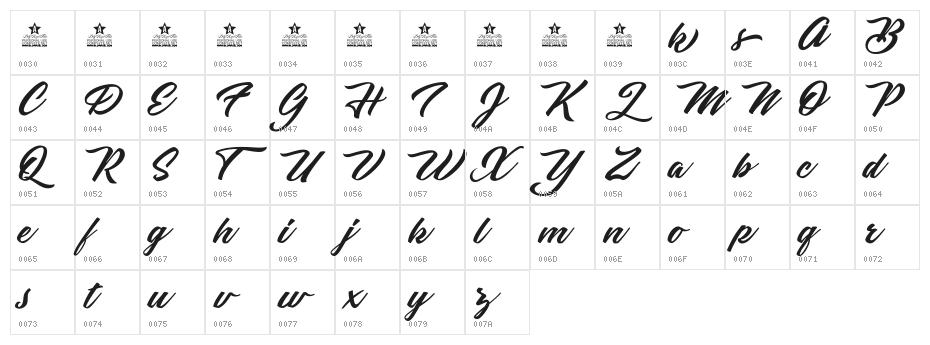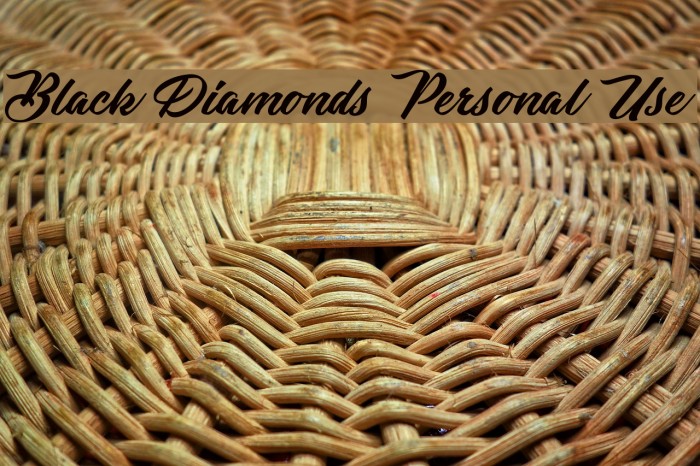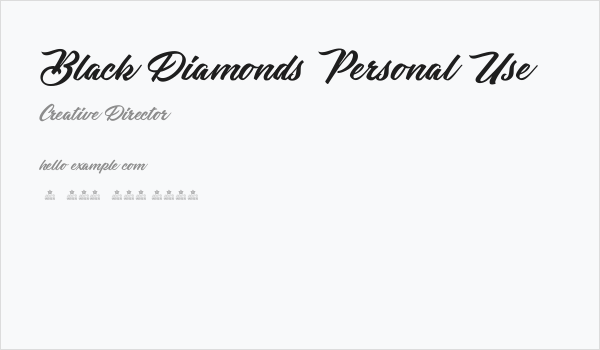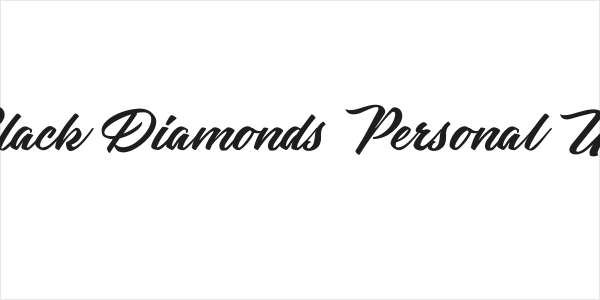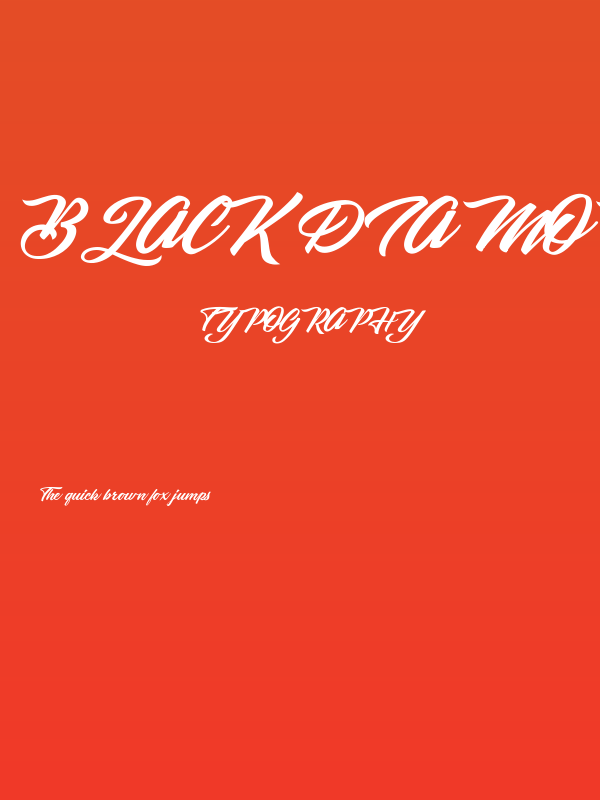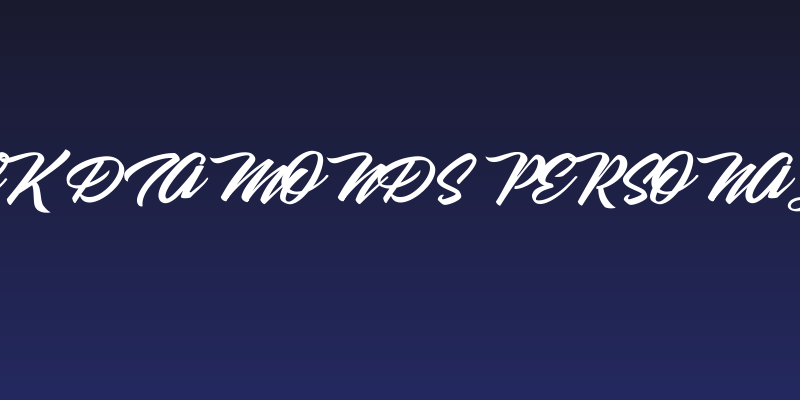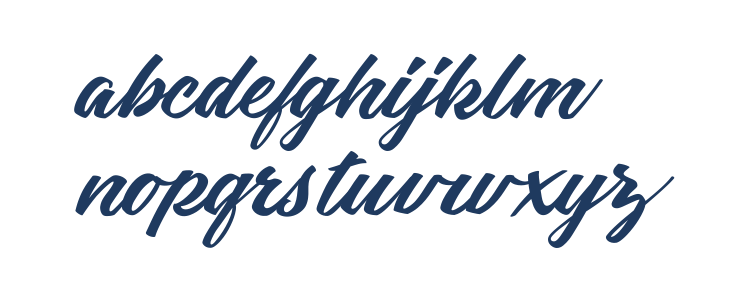
Black Diamonds Personal Use Font
Black Diamonds Personal Use Description
This font features a bold and flowing script style, characterized by its elegant and cursive letterforms. The uppercase letters are particularly striking, with sweeping curves and a sense of movement that adds a dynamic quality to the text. The lowercase letters maintain this fluidity, creating a harmonious and cohesive appearance. The font's design is reminiscent of traditional calligraphy, yet it incorporates a modern twist with its bold strokes and contemporary flair. This makes it suitable for a variety of design applications where a touch of elegance and sophistication is desired.
Use CaseLogos, Headlines, Invitations
Proposed ProjectsIdeal for wedding invitations, branding, logo design, and elegant stationery.